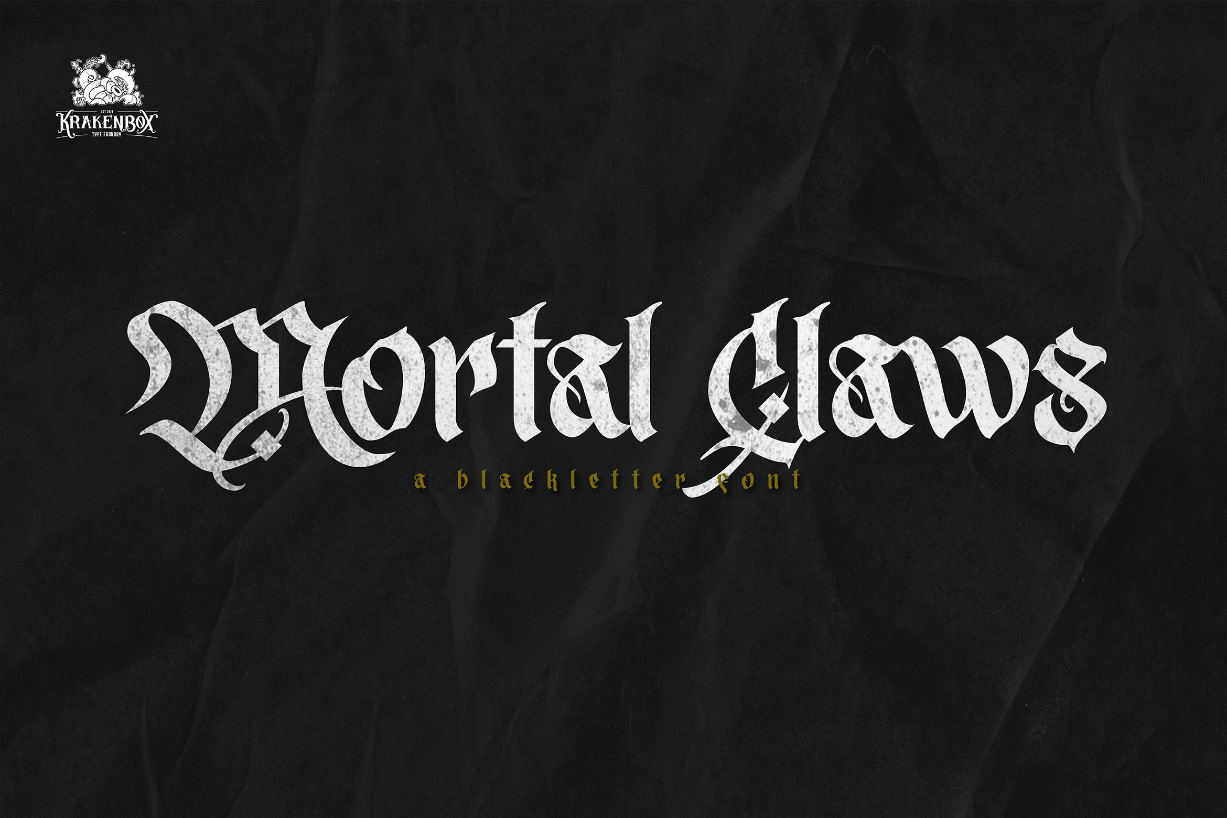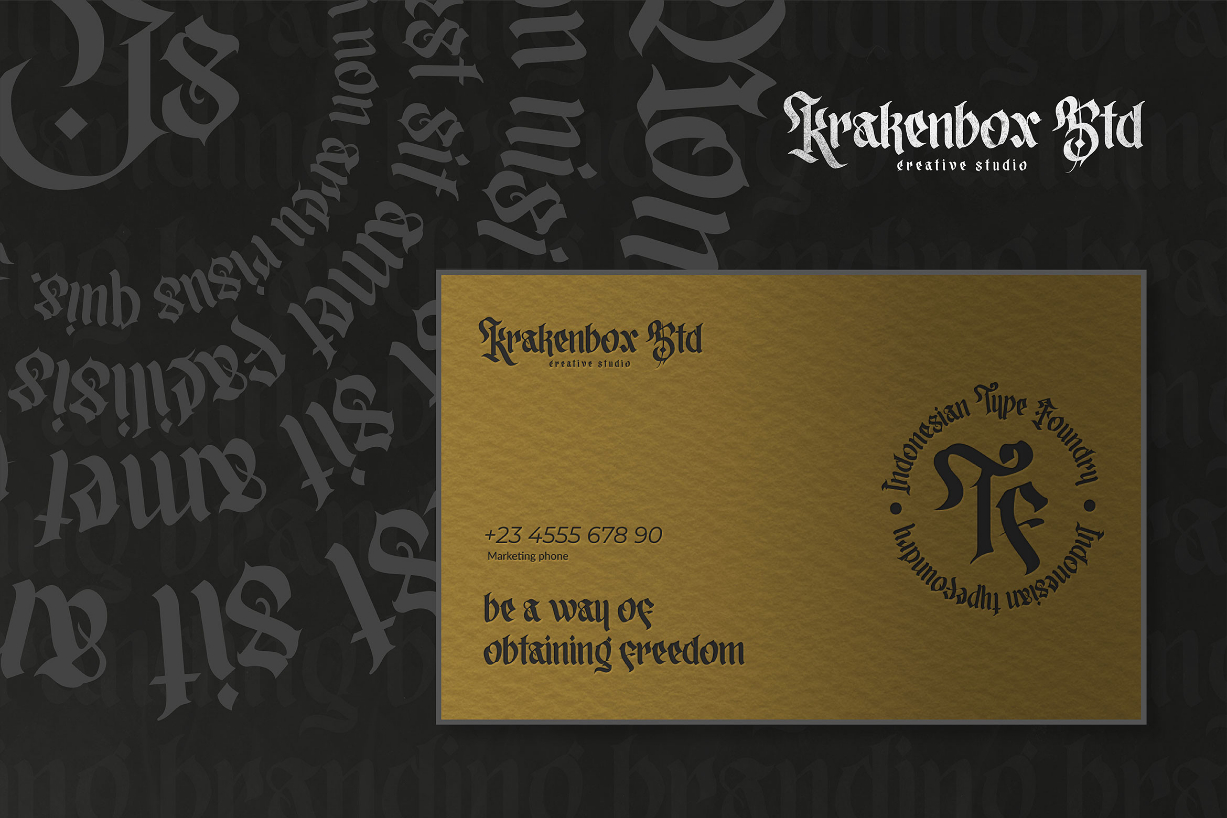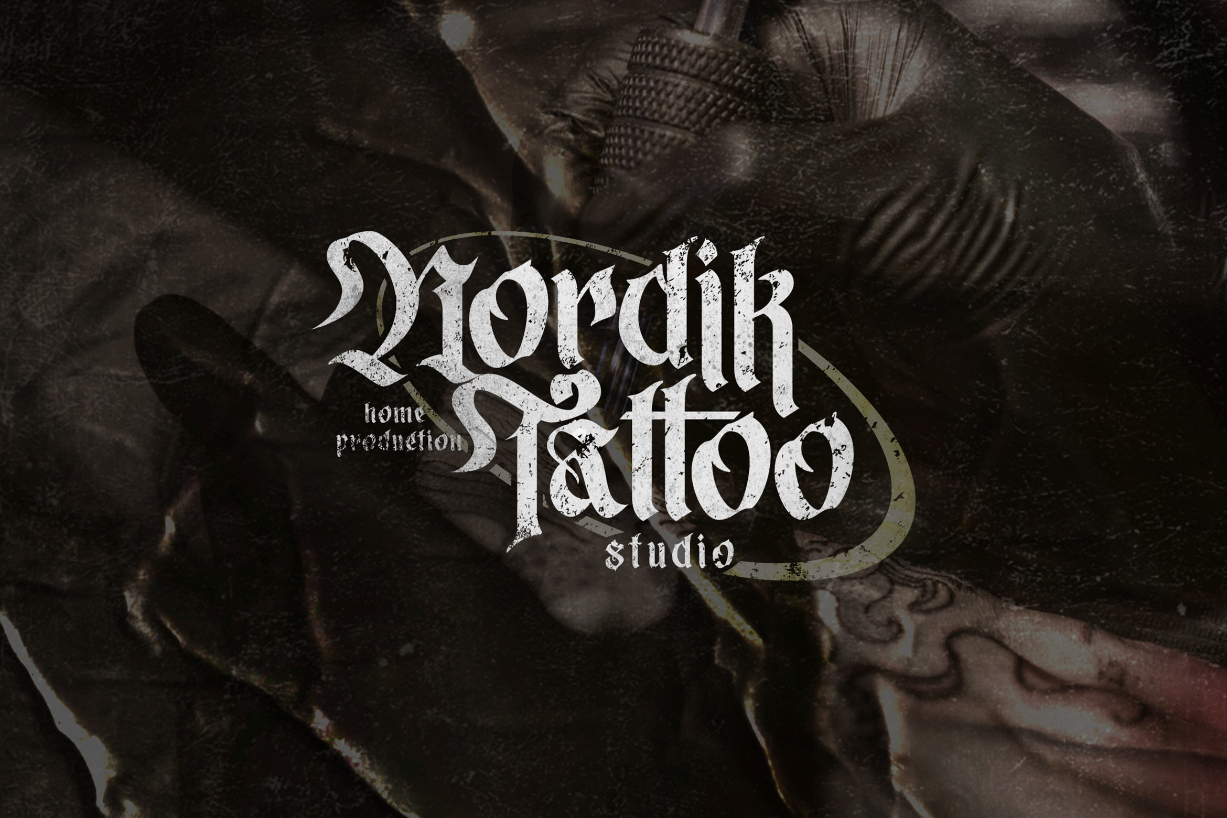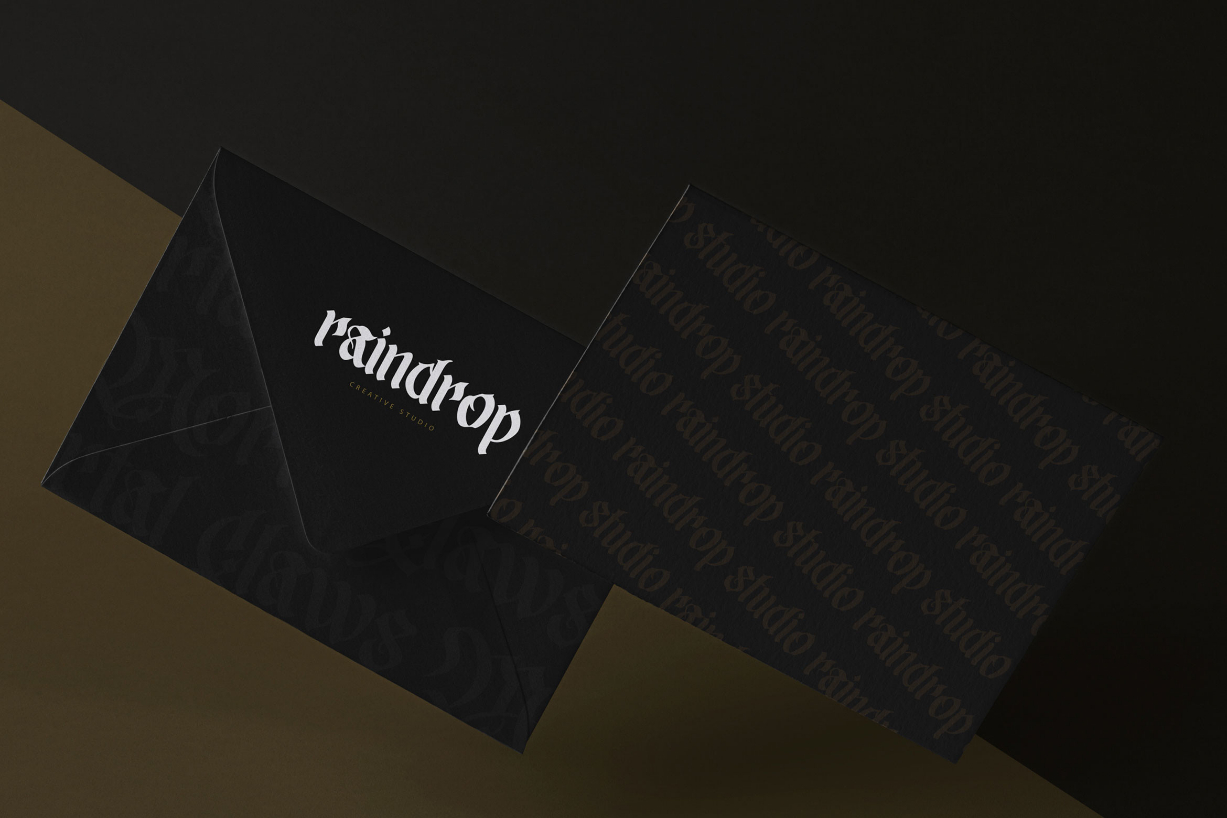
About Mortal Claws Font
Mortal Claws has a unique blackletter font, featuring a gothic, mysterious, brave, classic style. It is a great font for fashion, apparel projects, signature, album covers, logos, branding, magazines, social media, and more.